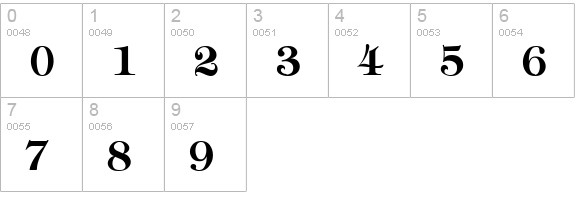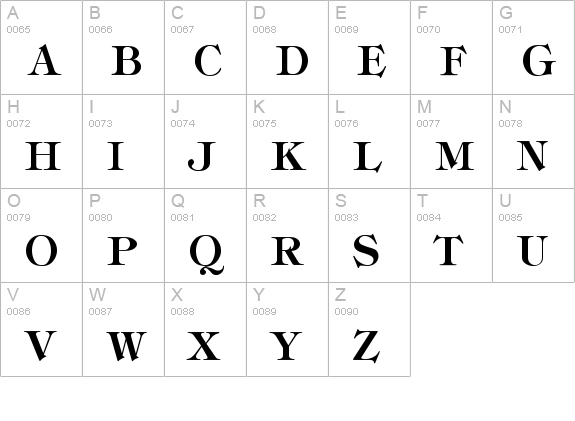
Tiffany-Bold is a strong, high-contrast variant in the Tiffany typeface family \xE2\x80\x94 well suited to headlines, attention-grabbing titles, and strong calls-to-action.
Introducing Tiffany-Bold, a captivating font that exudes elegance and sophistication. With its sleek lines and bold strokes, this font is perfect for adding a touch of luxury to any design project. Whether you're creating a stunning logo, designing a striking poster, or crafting a captivating website, Tiffany-Bold will make your text stand out with its timeless beauty. Not only does Tiffany-Bold possess an inherent charm and grace, but it also offers the incredible advantage of being freely available to download. That's right, this exquisite font can be yours at no cost! Thanks to FontsMarket.com, you can easily access and enjoy the full potential of Tiffany-Bold without breaking the bank. Imagine the possibilities with this stunning typeface at your fingertips. From fashion branding to wedding invitations, from editorial layouts to product packaging, Tiffany-Bold will effortlessly elevate your designs to new heights. Its versatility allows it to adapt to various styles and themes, ensuring that your message is delivered with impact and finesse. The attention to detail in every letterform of Tiffany-Bold is a testament to the meticulous craftsmanship that went into its creation. The smooth curves and sharp edges come together harmoniously, creating a visually striking composition that demands attention. Its generous proportions and well-balanced letter spacing make it highly legible, ensuring that your text is effortlessly readable, even at small sizes. Unleash your creativity and let Tiffany-Bold be your artistic companion. With its stunning aesthetic and generous availability, this font is a must-have for any designer or typographer. So don't miss out on the opportunity to download Tiffany-Bold for free at FontsMarket.com and experience the beauty and versatility of this extraordinary typeface. Get ready to elevate your designs to new levels of excellence.